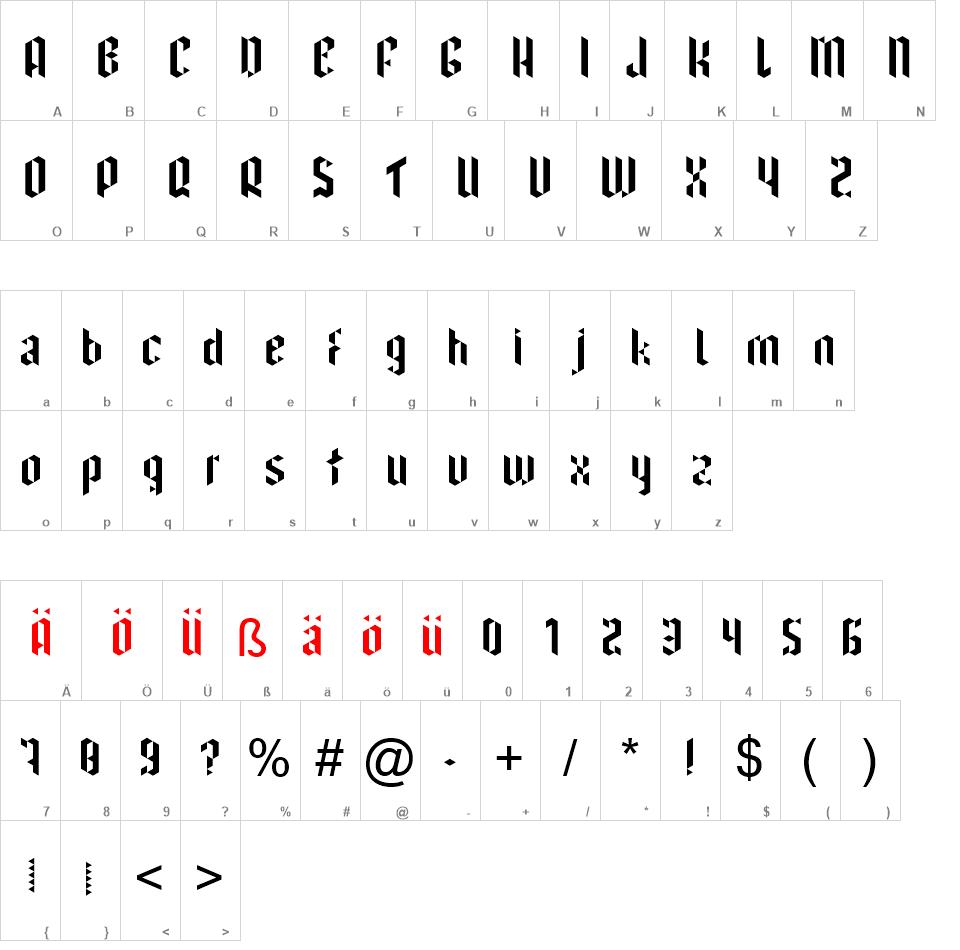
I have been waiting
I have been waiting font
I have been waiting
I have been waiting for you is a modern Gothic face that comes in regular and bold styles.